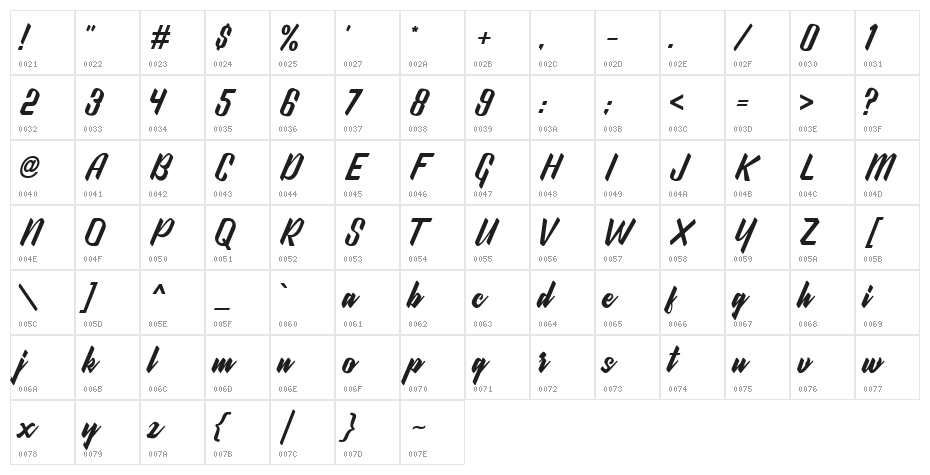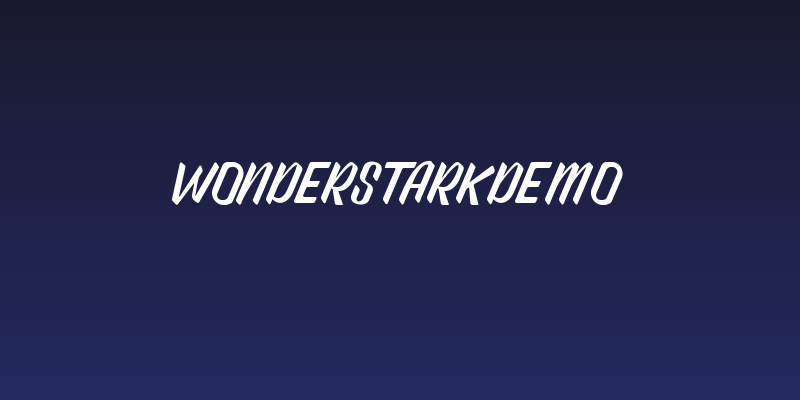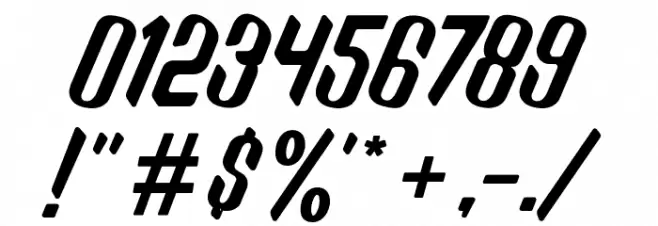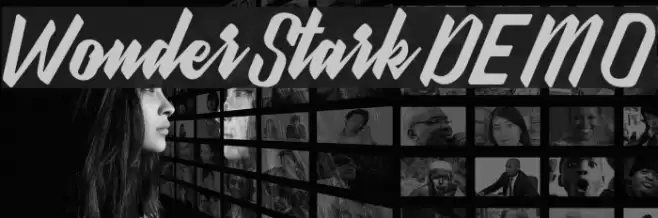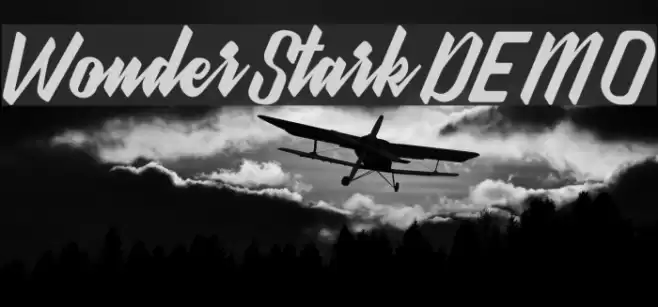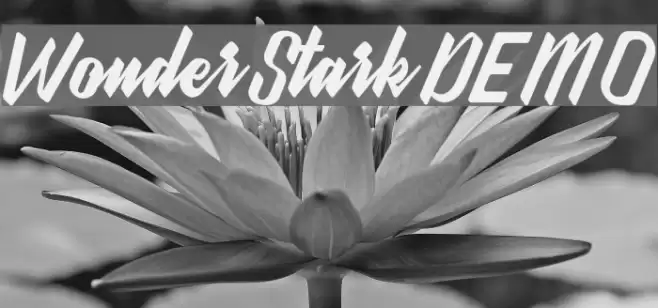
WonderStarkDEMO Font
WonderStarkDEMO Description
This font features a bold and dynamic script style with a modern flair. The uppercase letters are tall and slightly condensed, giving a sense of elegance and sophistication. The lowercase letters are more fluid and connected, showcasing a smooth, cursive flow that adds a touch of personality and charm. The numbers are consistent with the overall style, maintaining the boldness and slight slant seen in the letters. Special characters are designed to complement the letterforms, ensuring a cohesive look across all text elements. The font's overall appearance is striking and memorable, making it ideal for projects that require a strong visual impact.